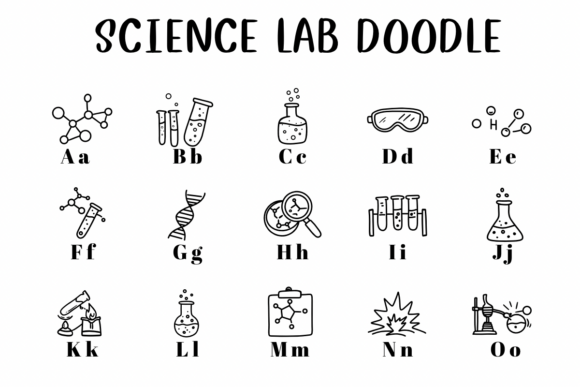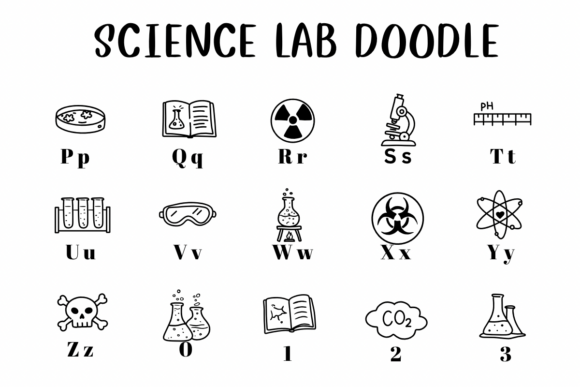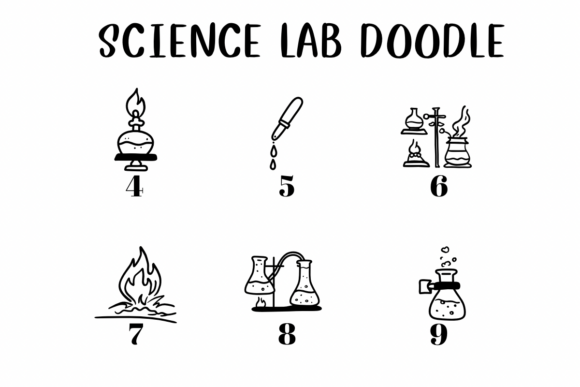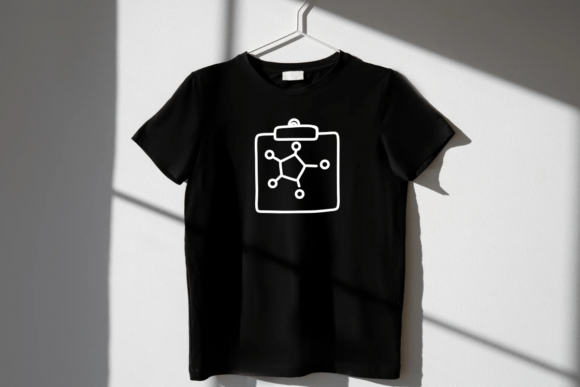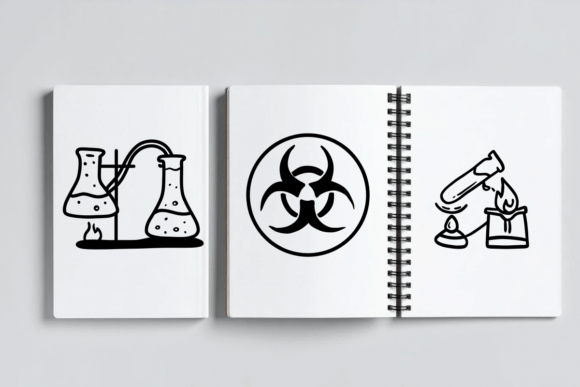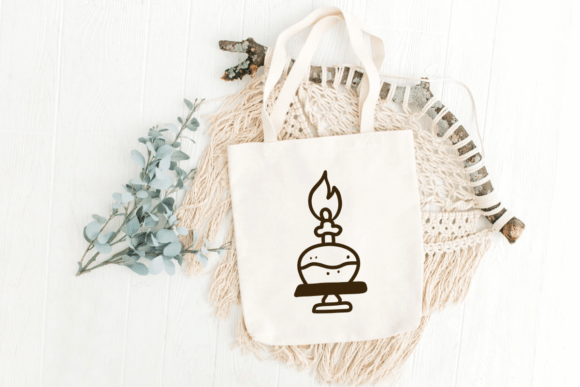
Introduction to Science Lab Doodle Font
Science Lab Doodle is a dingbats font with theme with a sketch style.
This font can enhance your creative projects such as wedding invitations, DIY, crafts, decorations, logos, and many other creative ideas .
Key Features of Science Lab Doodle Font
Why Choose Science Lab Doodle Font?
Science Lab Doodle Font offers exceptional quality and versatility, making it a valuable addition to your design toolkit. Whether you’re creating for personal projects or commercial use, Science Lab Doodle Font delivers professional results.